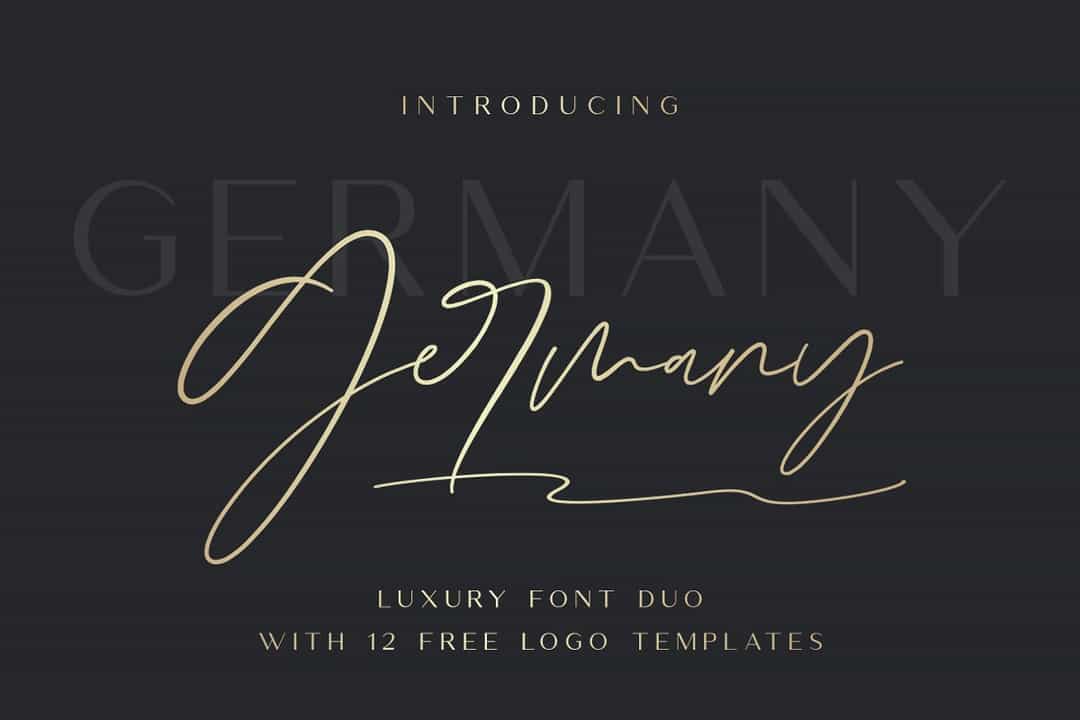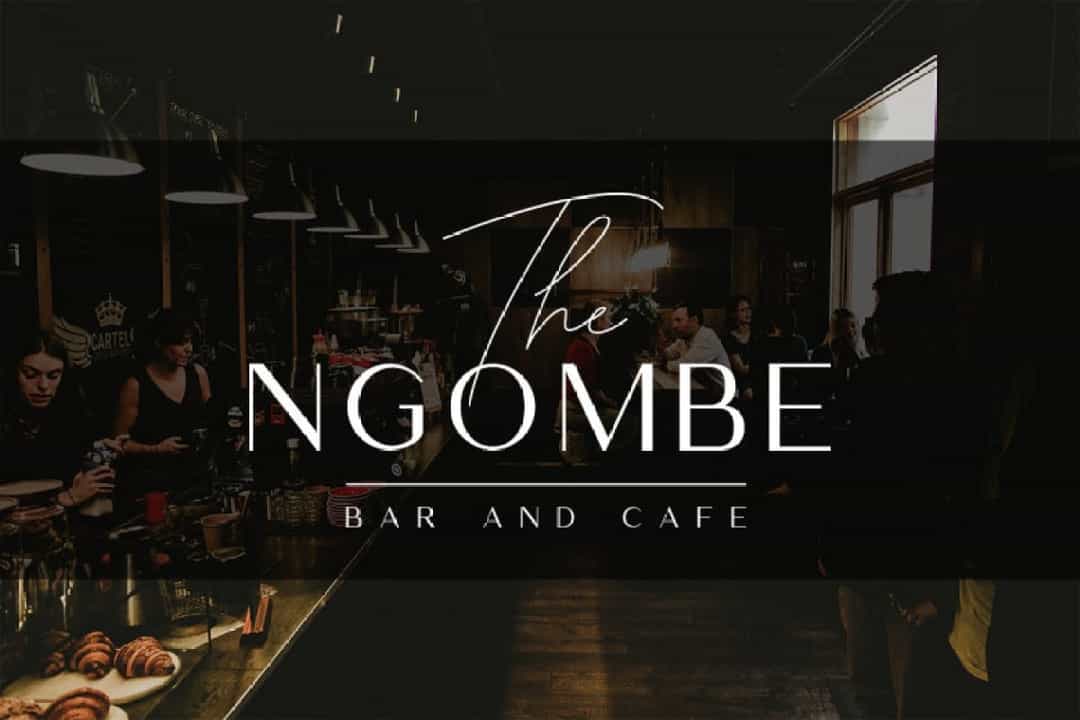
Germany Font Duo
Discover Germany Font Duo, part of the   Sans Serif  Handwritten collection—a versatile and unique font perfect for adding a personal touch to your projects. Download it for free and enjoy crafting designs with style, from invitations to social media posts. This font is available exclusively for personal use, giving you the freedom to create without limits. Unlock your creativity with Germany Font Duo today!
Conquer the glamorous German market by getting the next level of fonts, the Germany Luxury Font Duo. The charming typographic color of Germany allows for the freedom of creative expression through a wide range of design projects from logo & branding to wedding designs, social media posts, and product designs & advertisements.